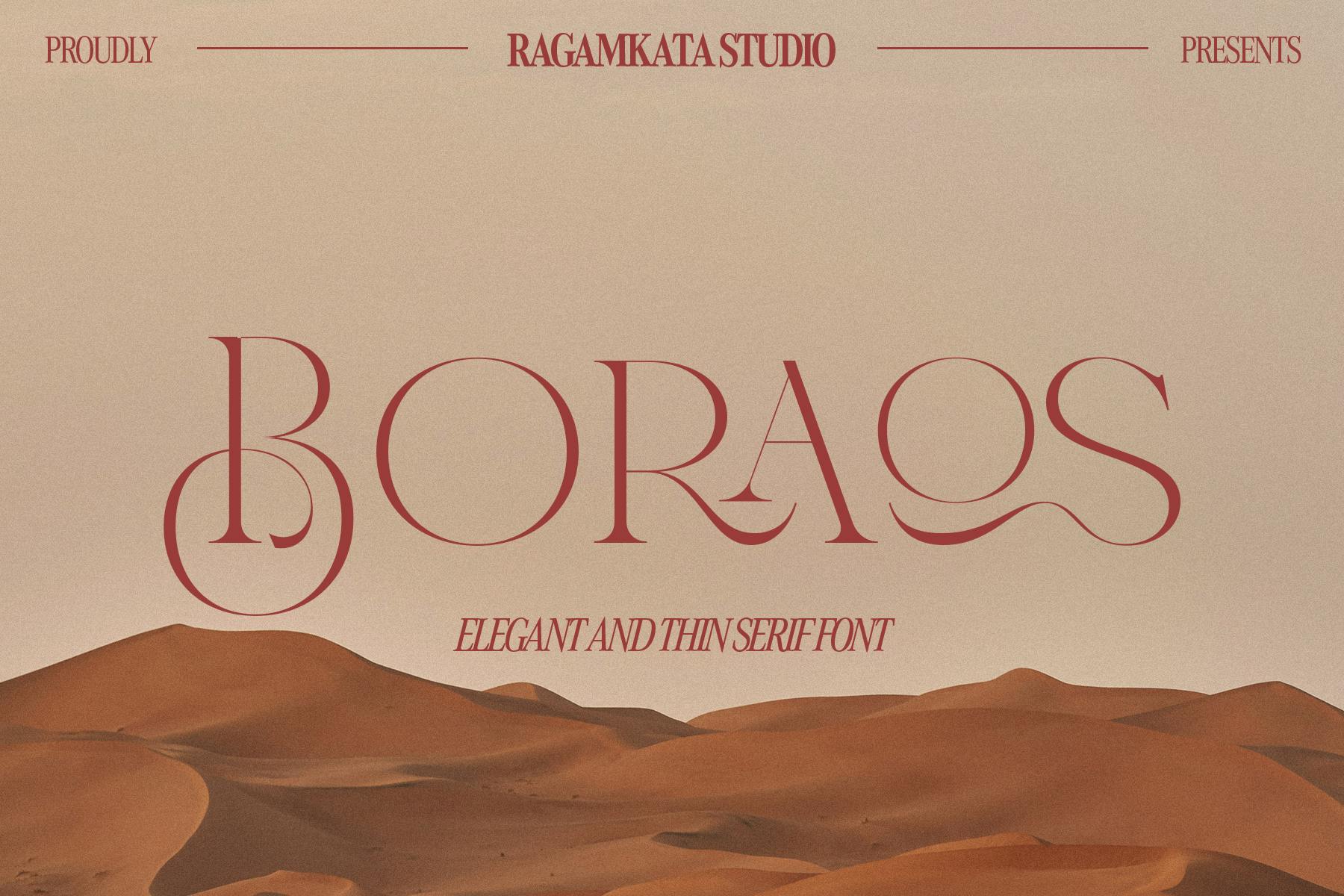
Boraos – Elegance Serif Font
Boraos is an elegant serif font designed to enhance any design project with its sophisticated style. With normal spacing and versatility for various sizes, this font is perfect for both print and digital applications. Its refined aesthetic makes it an ideal choice for creating visually appealing text that captivates and engages the audience effectively.